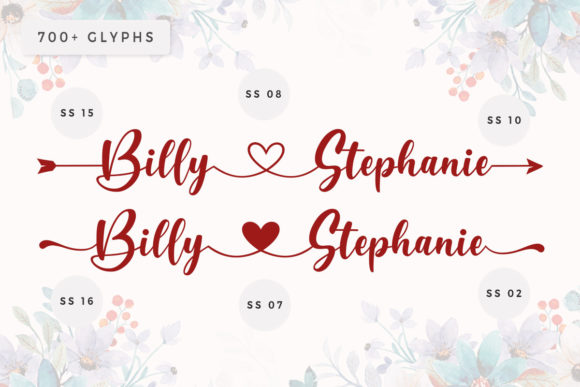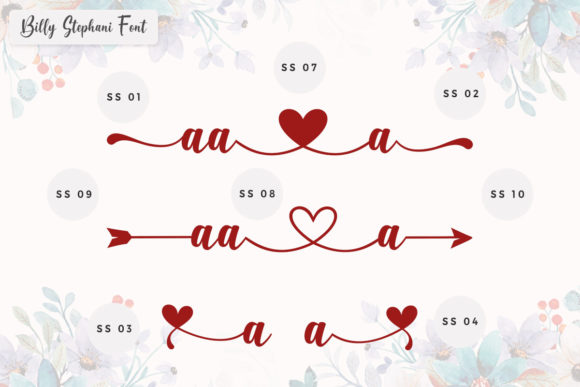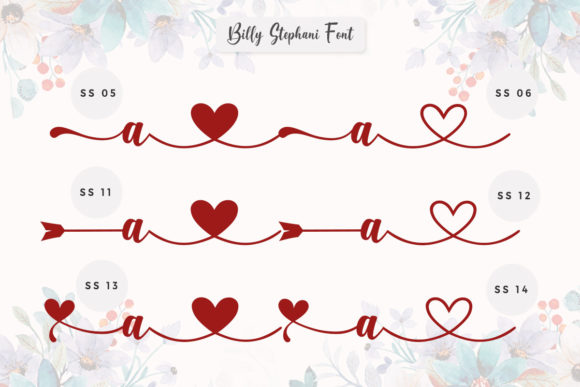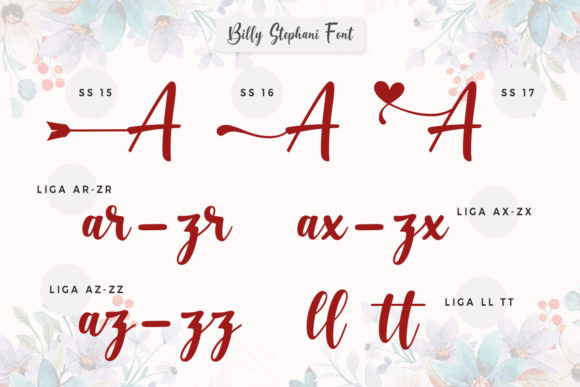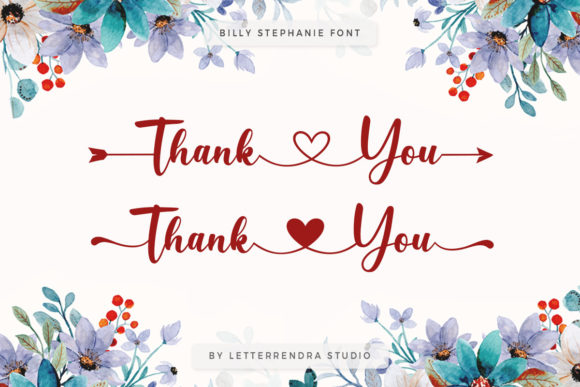
Billy Stephanie Font: Elevate Your Designs with Delicate Elegance
In the world of typography, a font can make or break a design. For crafters, designers, and creative enthusiasts, finding the perfect font can be a daunting task. However, if you’re looking for a delicate script font that exudes elegance and sophistication, look no further than Billy Stephanie. This beautifully crafted font is a wonderful asset to any font library, and in this article, we’ll explore what makes it so special.
A Delicate Script Font with a Personal Touch
Billy Stephanie is a delicate script font that boasts intricate details and a high level of craftsmanship. Its neat and elegant design makes it perfect for a wide range of creative projects, from digital designs to print materials. Whether you’re working on a logo, a wedding invitation, or a social media graphic, Billy Stephanie is sure to add a touch of sophistication and whimsy to your design.
One of the standout features of Billy Stephanie is its PUA (Private Use Area) encoding. This means that you can access all of the glyphs and swashes with ease, giving you complete creative control over your design. With PUA encoding, you can effortlessly navigate the font’s extensive character set, including ligatures, alternates, and ornaments. This feature makes it easy to add flourishes and personality to your design, taking it to the next level.
The versatility of Billy Stephanie is one of its greatest strengths. This font can be used for a wide range of design projects, including:
- Social media graphics and ads
- Digital and print magazines
Whatever the topic or theme, Billy Stephanie is sure to enhance your design and add a touch of elegance.
Why Choose Billy Stephanie?
So, what sets Billy Stephanie apart from other script fonts on the market? Here are just a few reasons why designers and crafters love this font:
- Delicate and elegant design: Billy Stephanie boasts a beautiful, intricate design that’s perfect for adding a touch of sophistication to your project.
- PUA encoded: With PUA encoding, you can access all of the glyphs and swashes with ease, giving you complete creative control.
- Highly versatile: Billy Stephanie can be used for a wide range of design projects, from digital designs to print materials.
Tips for Using Billy Stephanie
To get the most out of Billy Stephanie, here are a few tips to keep in mind:
- Experiment with different sizes: Billy Stephanie looks great in a variety of sizes, from small and delicate to large and bold.
- Play with swashes and glyphs: With PUA encoding, you can easily access the font’s extensive character set. Experiment with different swashes and glyphs to add personality to your design.
- Pair with complementary fonts: Billy Stephanie pairs beautifully with a range of fonts. Experiment with different combinations to find the perfect match for your design.
In conclusion, Billy Stephanie is a delicate script font that’s sure to elevate your designs and add a touch of elegance. With its PUA encoding, intricate details, and versatility, this font is a wonderful asset to any font library. Whether you’re a designer, crafter, or creative enthusiast, Billy Stephanie is a must-have font that’s sure to inspire your next project.